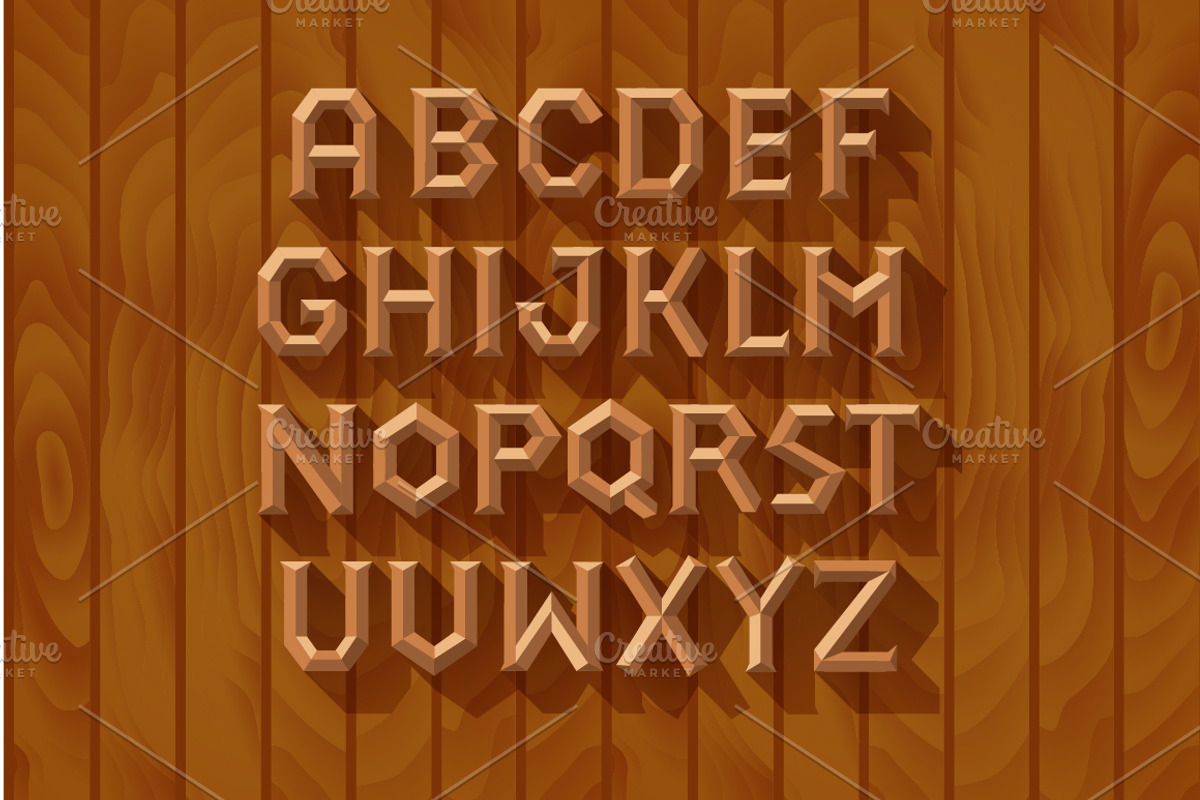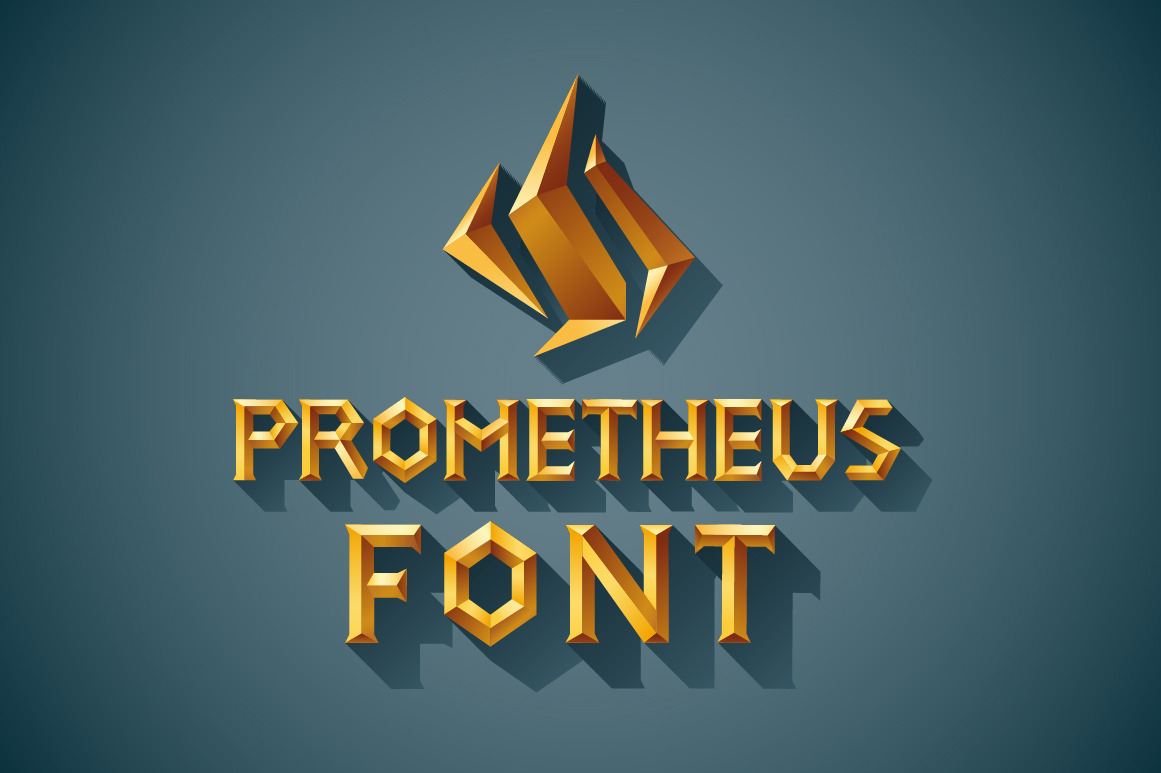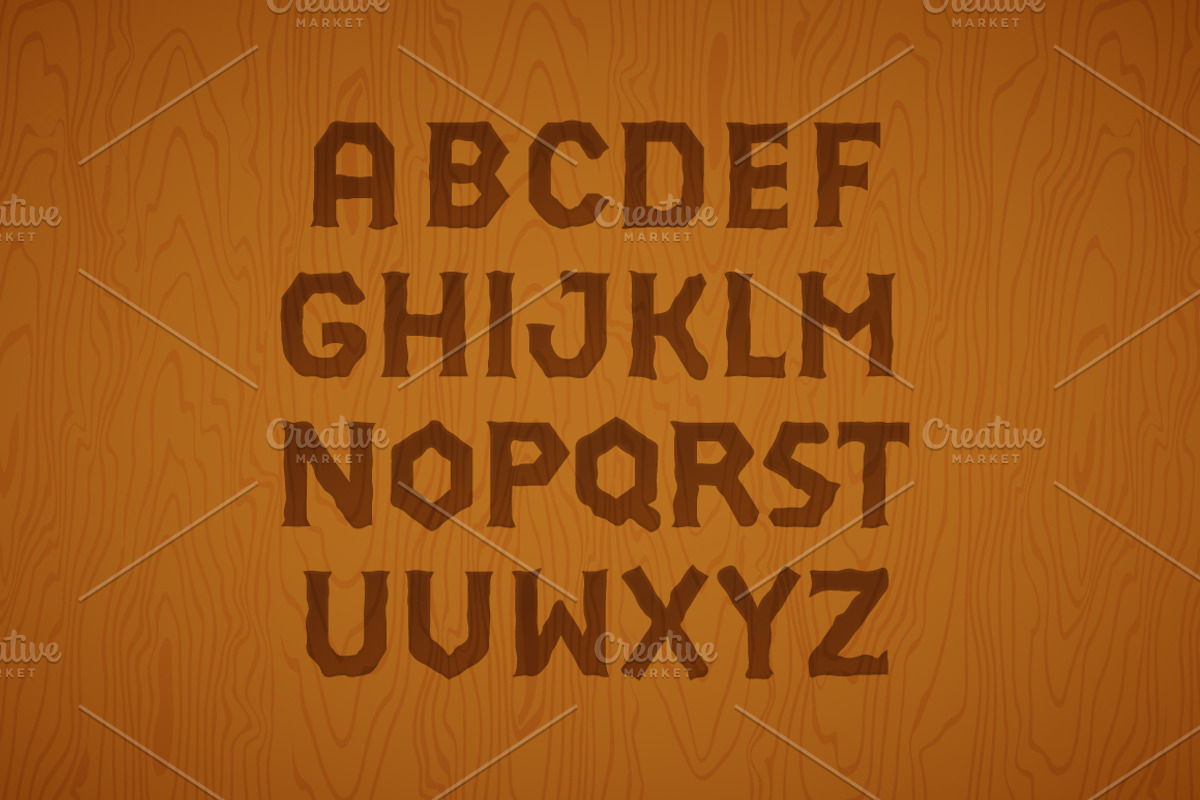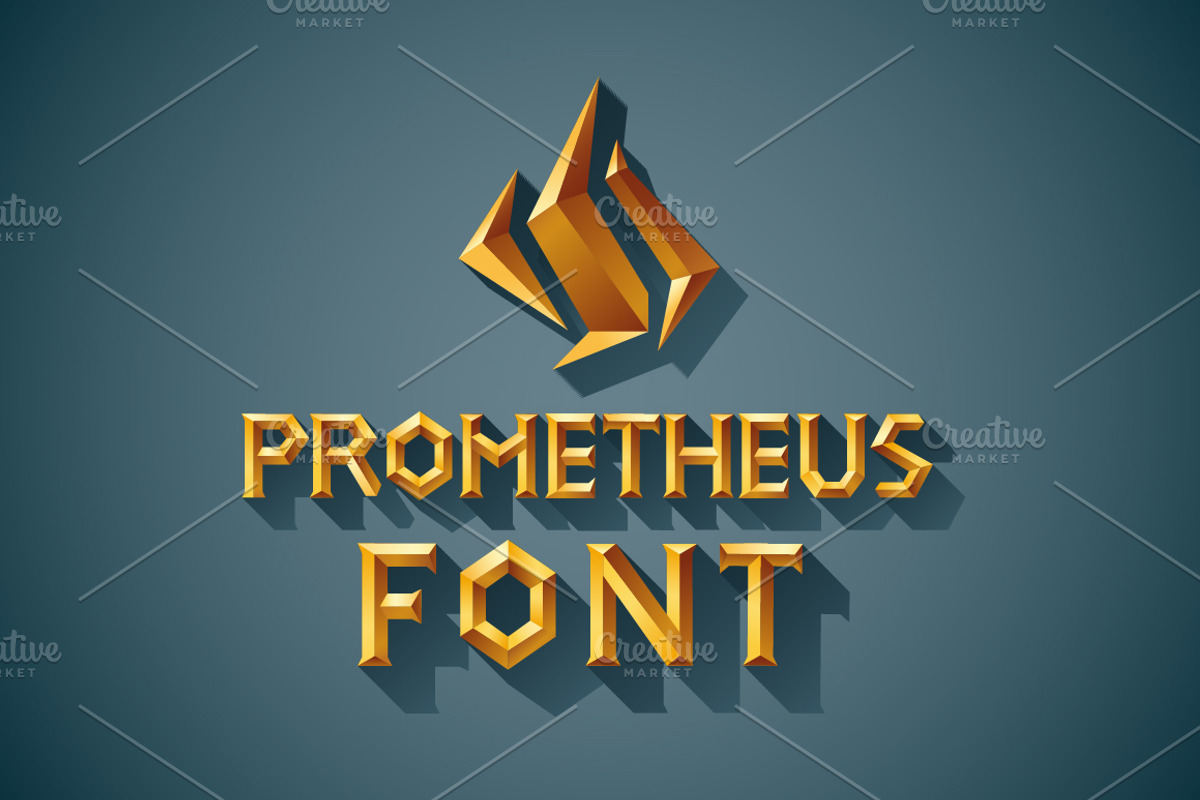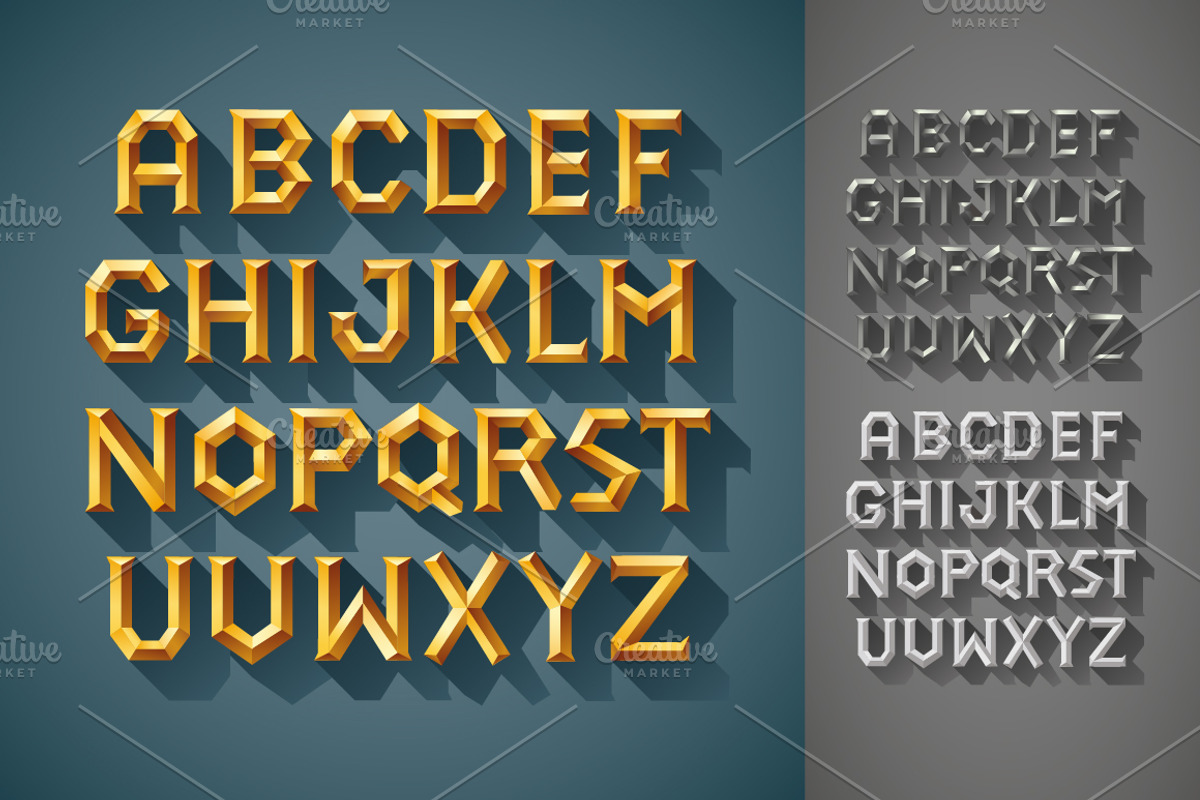
3D Font Set. Gold, wood, silver
This is a unique vector letters (typefaces) with exclusive typefaces. Set of 5 different styles: Gold, Silver, Stone, Engraved Wood and Wood.